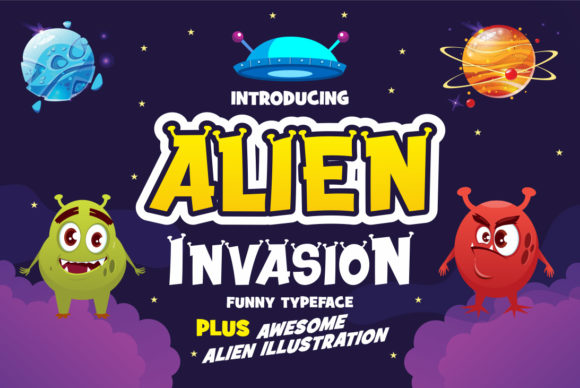
Alien Invasion Font: The Ultimate Guide to Adding a Cute and Playful Touch to Your Designs
Are you looking for a unique display font that can add a cute and playful touch to your designs? Look no further than the Alien Invasion Font. This font is perfect for designers who want to create eye-catching and fun designs that stand out from the crowd. In this article, we’ll take a closer look at the Alien Invasion Font, its features, and how you can use it to take your designs to the next level.
What is Alien Invasion Font?
The Alien Invasion Font is a unique display font that is designed to add a cute and playful touch to your designs. It’s perfect for creating fun and eye-catching designs that are sure to grab attention. The font comes with 5 awesome illustrations, making it very versatile and perfect to use for a variety of design projects.
Key Features of Alien Invasion Font
- Unique Display Font: The Alien Invasion Font is a unique display font that is designed to stand out from the crowd.
- Cute and Playful: The font has a cute and playful touch, making it perfect for designs that require a fun and lighthearted approach.
- 5 Awesome Illustrations: The font comes with 5 awesome illustrations, making it very versatile and perfect to use for a variety of design projects.
- Perfect for Quotes, Logotype, Badges, Labels, and More: The Alien Invasion Font is perfect for use in quotes, logotype, badges, labels, packaging, t-shirts, and more.
How to Use Alien Invasion Font
The Alien Invasion Font is very easy to use and can be incorporated into a variety of design projects. Here are some ideas on how to use the font:
- Quotes: Use the Alien Invasion Font to create eye-catching quotes that are sure to grab attention.
- Logotype: Use the font to create a unique and memorable logotype for your brand.
- Badges: Use the font to create fun and eye-catching badges that can be used on a variety of products.
- Labels: Use the font to create labels that are sure to stand out from the crowd.
- Packaging: Use the font to create eye-catching packaging that is sure to grab attention.
- T-Shirts: Use the font to create fun and eye-catching t-shirts that are sure to be a hit.
Benefits of Using Alien Invasion Font
There are many benefits to using the Alien Invasion Font in your designs. Here are some of the key benefits:
- Unique and Eye-Catching: The font is unique and eye-catching, making it perfect for designs that require a fun and lighthearted approach.
- Versatile: The font comes with 5 awesome illustrations, making it very versatile and perfect to use for a variety of design projects.
- Easy to Use: The font is very easy to use and can be incorporated into a variety of design projects.
- High-Quality: The font is of high-quality, making it perfect for professional designs.
Tips and Tricks for Using Alien Invasion Font
Here are some tips and tricks for using the Alien Invasion Font:
- Use it with Bright Colors: Use the font with bright colors to create eye-catching designs.
- Experiment with Different Sizes: Experiment with different sizes to find the perfect size for your design.
- Use it with Other Fonts: Use the font with other fonts to create unique and eye-catching designs.
- Be Creative: Don’t be afraid to be creative and try new things with the font.
In conclusion, the Alien Invasion Font is a unique and eye-catching display font that is perfect for adding a cute and playful touch to your designs. With its 5 awesome illustrations and versatility, it’s perfect to use for a variety of design projects. Whether you’re a professional designer or just starting out, the Alien Invasion Font is a great addition to your font collection.
- What is the Alien Invasion Font? The Alien Invasion Font is a unique display font that is designed to add a cute and playful touch to your designs.